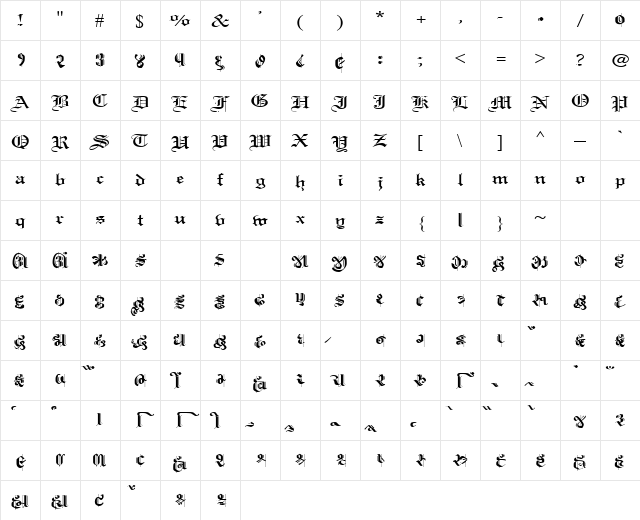
Complete AkrutiOfficeTreveniGuj Normal glyph index. Displaying only characters natively supported by AkrutiOfficeTreveniGuj Normal font.
AkrutiOfficeTreveniGuj is a composed and adaptable typeface that performs quietly and consistently across a wide range of design contexts.